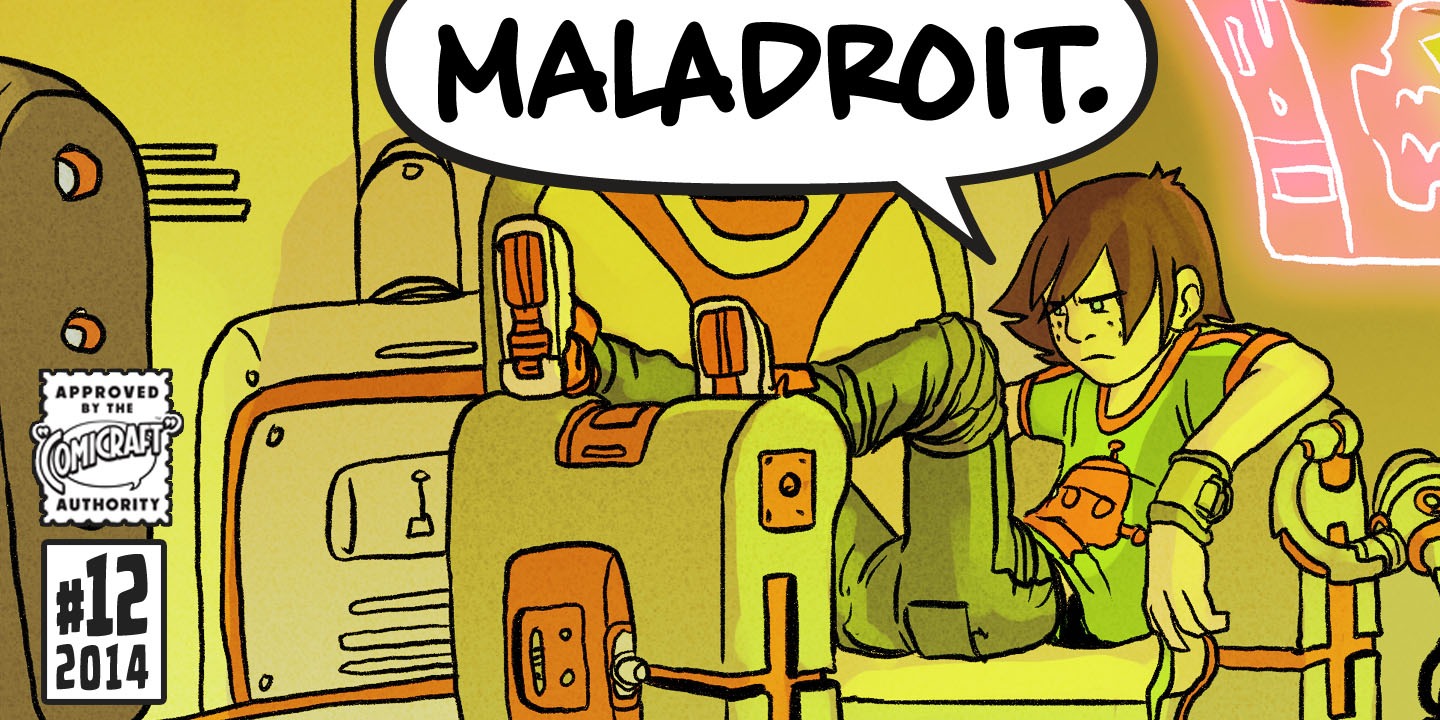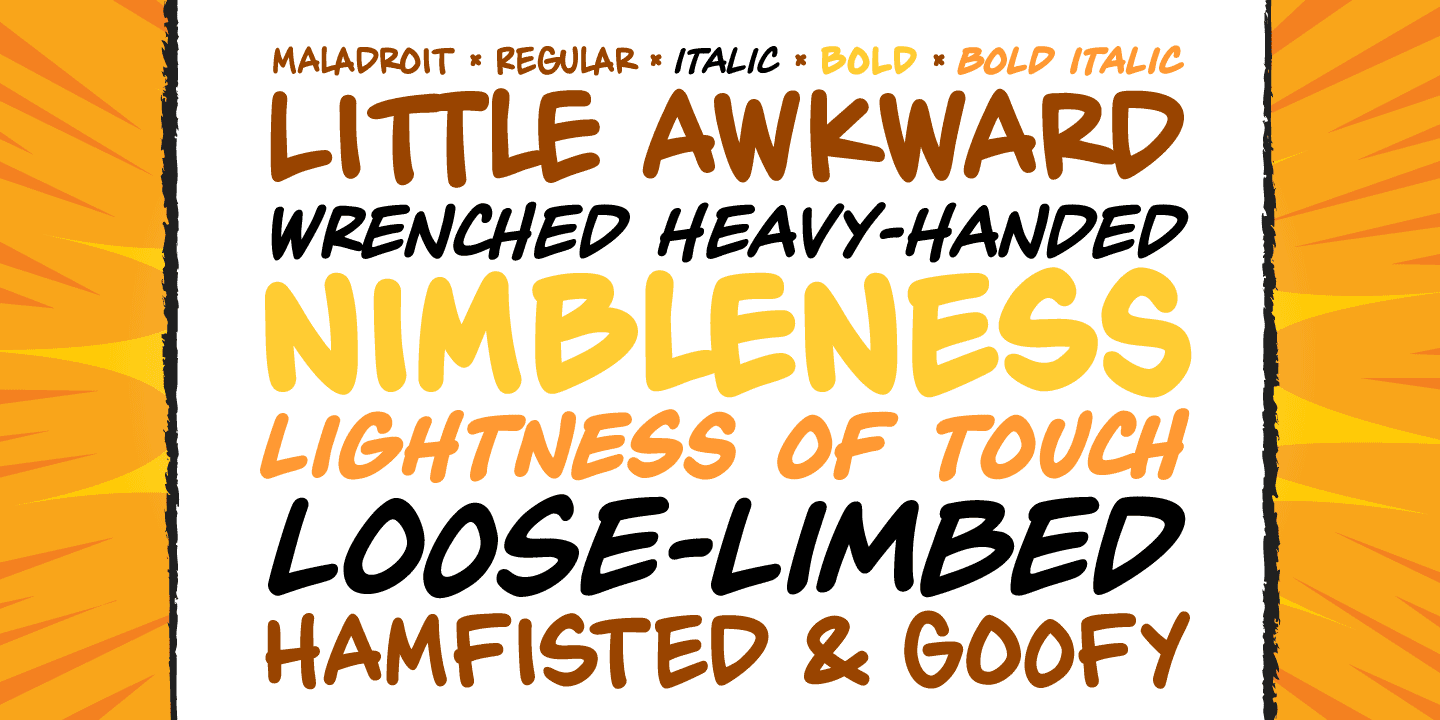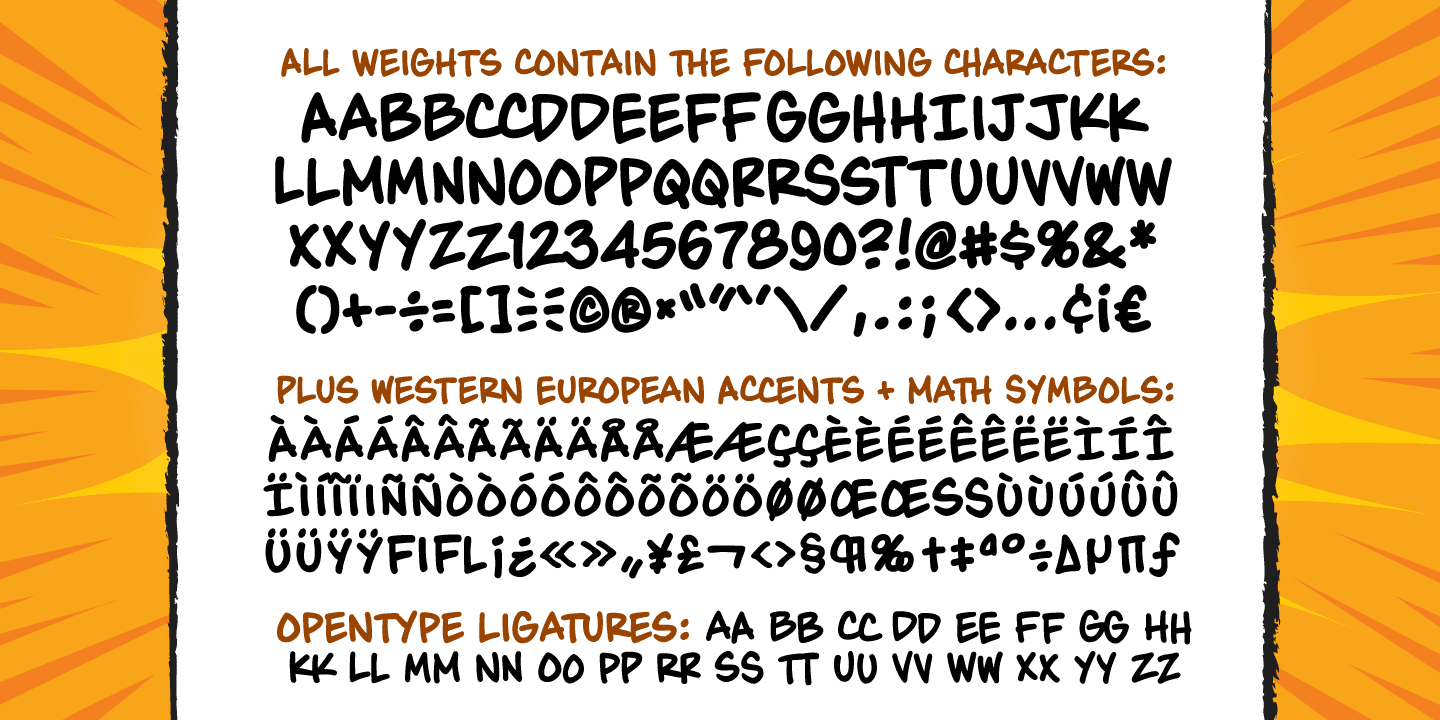
Maladroit
Okay, we admit it! Comicraft's latest offering -- wrenched heavy-handedly from the pages of CHARLEY LOVES ROBOTS – is definitely a little awkward, maybe even loose-limbed and goofy. Those (usually) awfully nice chaps in the Comicraft studio are perhaps best known for their dexterity, their lightness of touch and nimbleness of finger rather than the kind of bungling, graceless, clumsy work evident in their latest digital alphabet. So, yes, MALADROIT is probably the most inept, cack-handed, undiplomatic addition to our catalogue ever submitted by freewheelin' John Roshell (formerly GAUCHE-ell) but might just possibly be the perfectly wrong font choice for your more bungling, inept, incompetent and hamfisted characters.